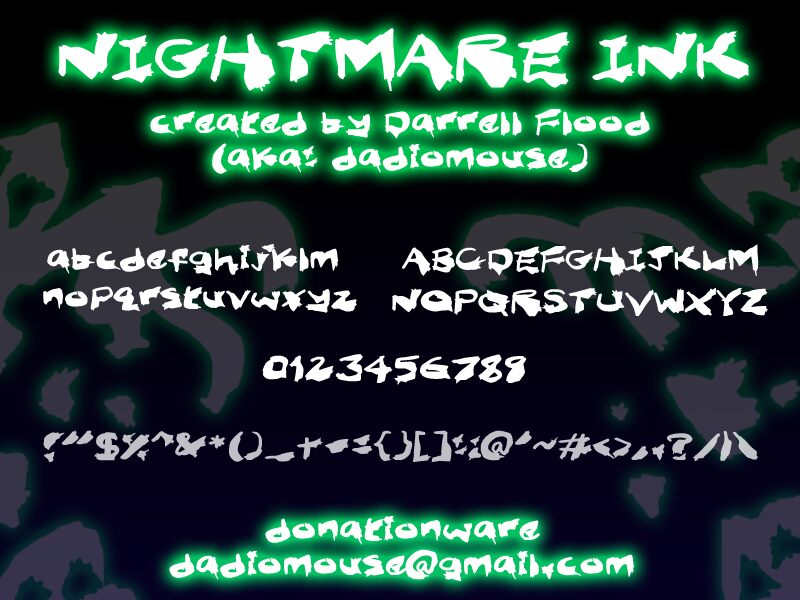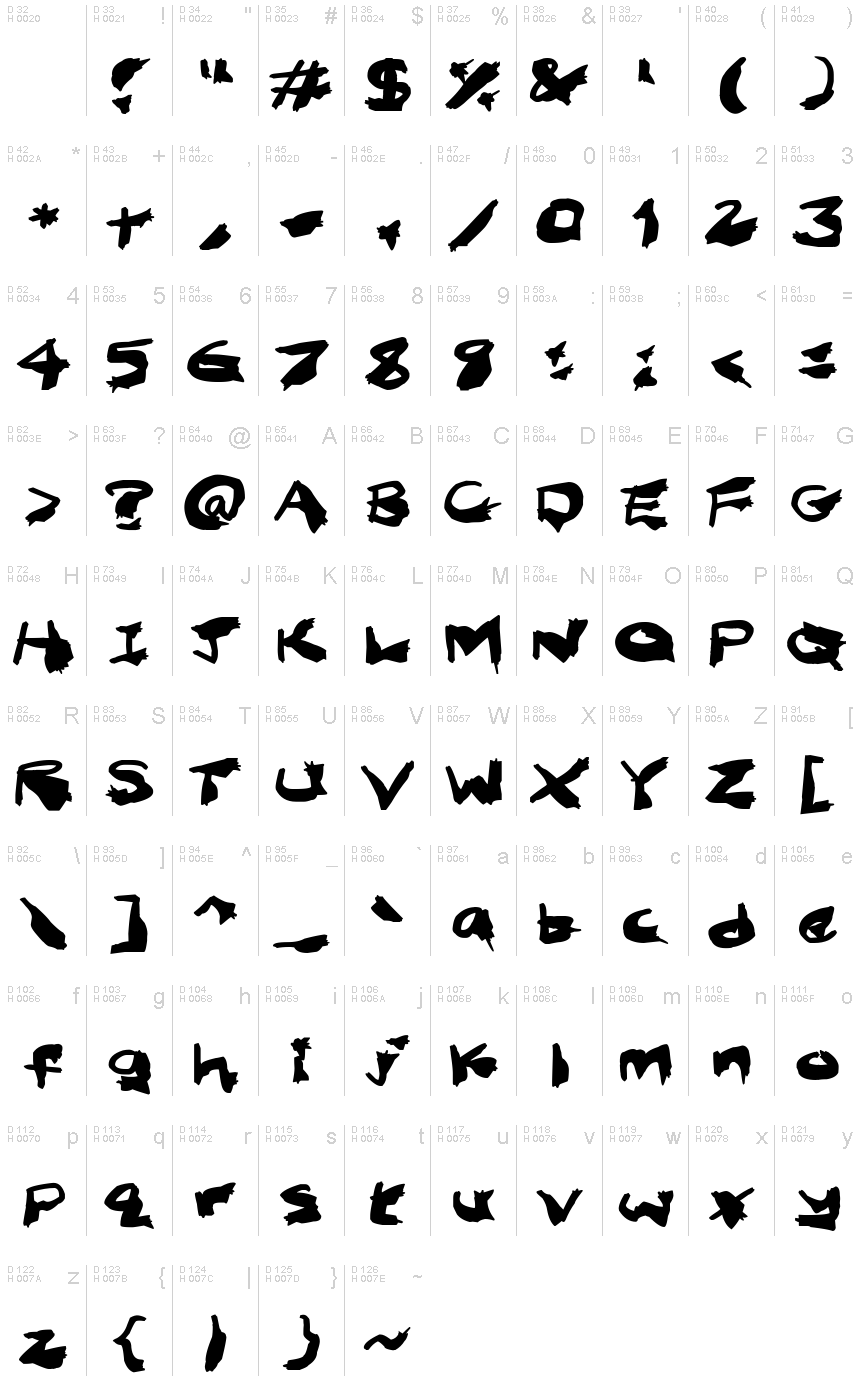
Nightmare Ink
Nightmare Ink is a display font that exudes an undeniably eerie and captivating presence. Designed by Hawtpixel, this bold, expanded typeface boasts a striking, distorted aesthetic that immediately commands attention. The jagged, ink-like strokes and irregular, menacing forms evoke a sense of unease and the macabre, making it an ideal choice for horror-themed designs, heavy metal album covers, and other projects that call for a truly unsettling typographic treatment.
Nightmare Ink's distinct style lends itself well to creating impactful headlines, logos, and other display elements that aim to unsettle and intrigue the viewer.